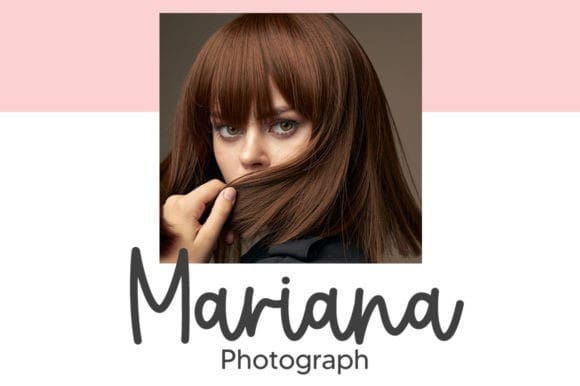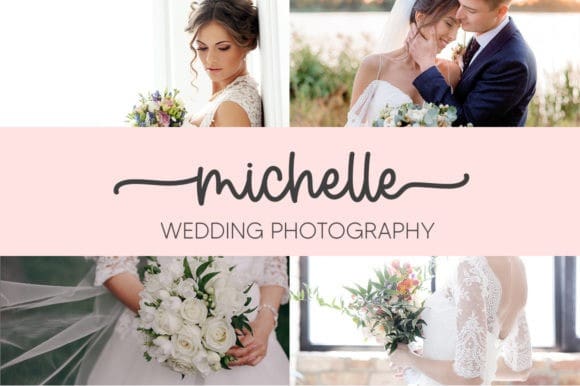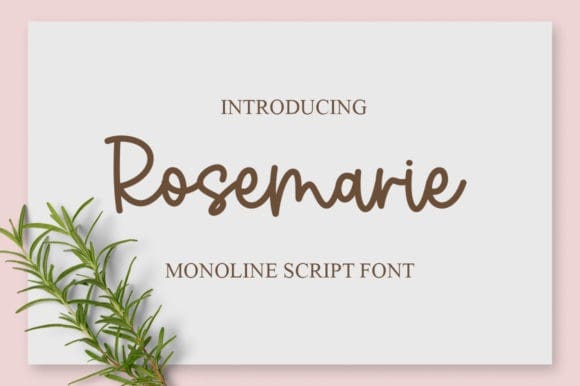
Rosemarie Script Font
Rosemarie Script Font is a beautiful, well-balanced, and fresh script font. It is defined by smooth curves and is perfect for fashion branding or editorial designs. This font is PUA encoded, which means you can access all glyphs and swashes with ease!